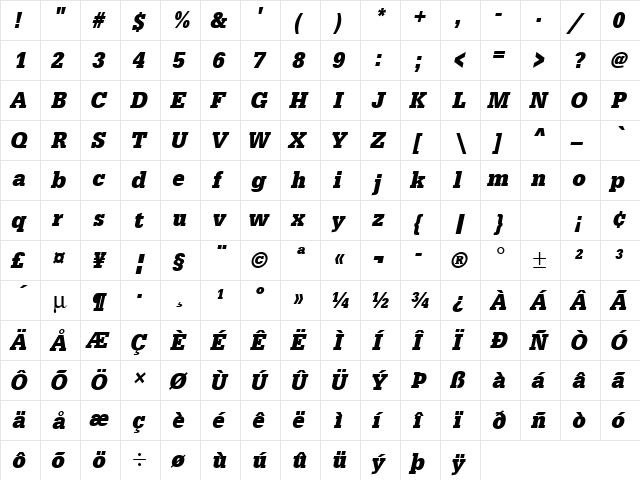
URWEgyptienneTExtNar Bold Oblique Font Preview
Design Context for URWEgyptienneTExtNar Typeface
URWEgyptienneTExtNar offers clean, dependable letterforms without strong stylistic allegiance, making it a practical choice for designers who need flexibility. The slanted form adds forward momentum and visual energy. The heavy weight commands attention and anchors typographic hierarchies.
Pro Tip: Try URWEgyptienneTExtNar for annotation and caption copy alongside an upright companion — the contrast in angle creates a dynamic but ordered typographic system.